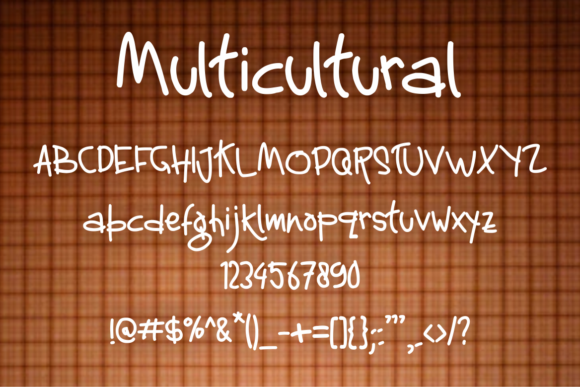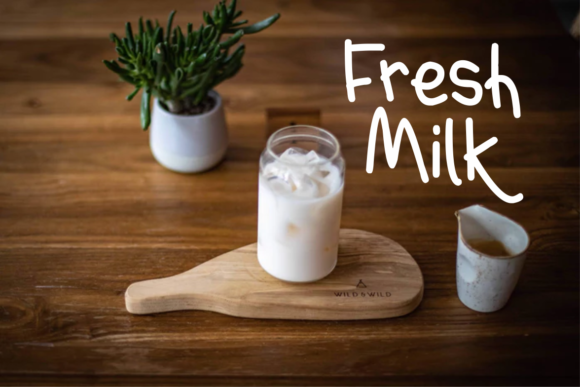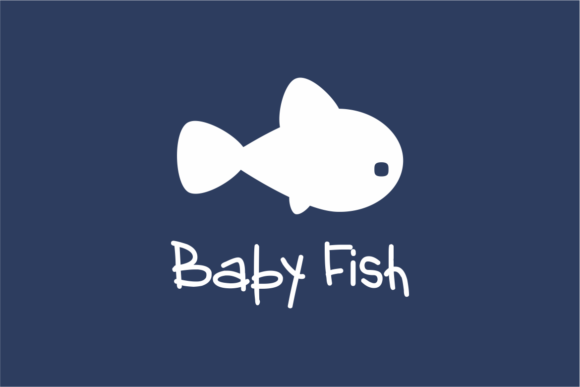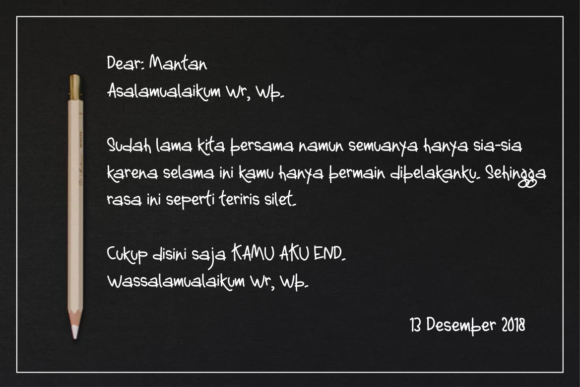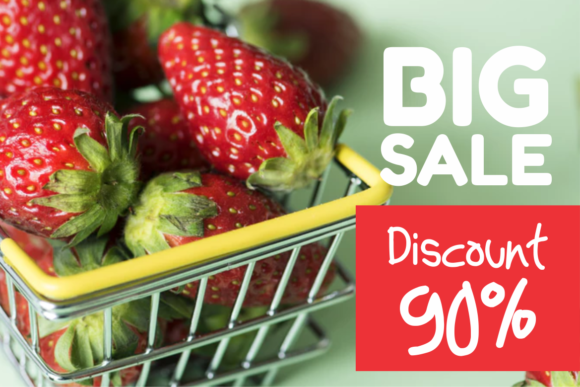
Introduction to Multicultural Font
Remember the thrill of working on a creative project, only to have it derailed by the perfect font? You envision a vibrant, eye-catching design, but struggle to find the right typeface to bring it to life. That’s where the Multicultural Font comes in – a simple yet charming font that’s perfect for adding a personal touch to your next project.
As a designer, you understand the importance of having a reliable design resource that can elevate your work. The Multicultural Font is a valuable addition to your toolkit, offering a natural look and a dancing baseline that will give your design a friendly feel. Plus, with its transparent background, you can easily incorporate it into any project, from print to digital media.
Key Features of Multicultural Font
- Comprehensive Character Set: Includes a wide range of characters, symbols, and glyphs from diverse cultures and languages, making it an ideal choice for creative projects that require a global perspective.
- High-Quality Design: Features a high-quality design with precise details, ensuring that the font looks great on various devices and platforms.
- Perfect Design Resource for Creative Projects: A versatile and unique design resource that can be used in a variety of creative projects, from branding and advertising to publishing and editorial design.
Honest Review: Multicultural Font
I recently came across the Multicultural Font and was excited to give it a try for my latest creative project. After some experimentation, I must say it’s a great addition to any design resource.
- High-quality font with a wide range of characters and glyphs, making it suitable for various languages.
- Great for projects that require a touch of cultural diversity and representation.
- Not suitable for complex text arrangements, as the font can be quite dense and overwhelming.
Overall, I’m impressed with the Multicultural Font’s potential and versatility. While it may not be perfect, it’s a valuable addition to any designer’s toolkit. With a bit of creative experimentation, you can unlock its full potential and take your designs to the next level.
The Multicultural Font is commonly used in cultural events, festivals, and celebrations. It can also be used in educational materials, such as textbooks and educational videos, to promote diversity and inclusivity. Additionally, the font can be used in business materials, such as brochures and flyers, to create a unique and diverse brand image.